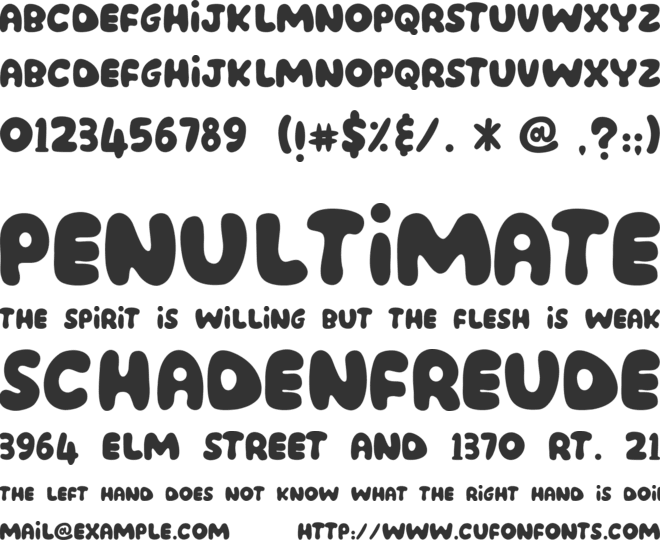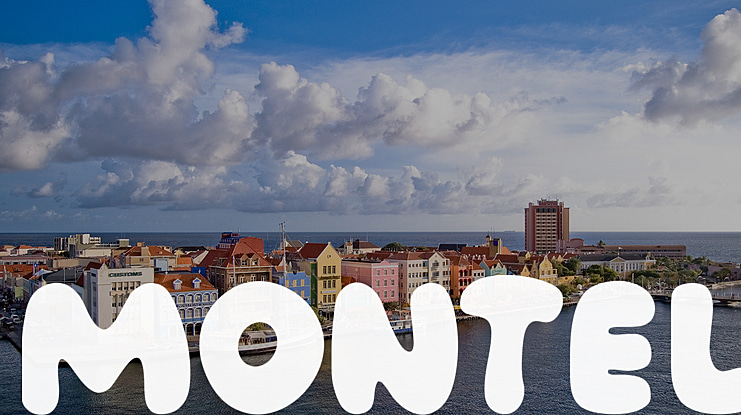
Montel Font
Montel is fancy font created by Haslinda Adnan. It's free to personal use.
Montel is an all-caps poster font with letters. Type [ for the smiley symbol :)
Montel font preview